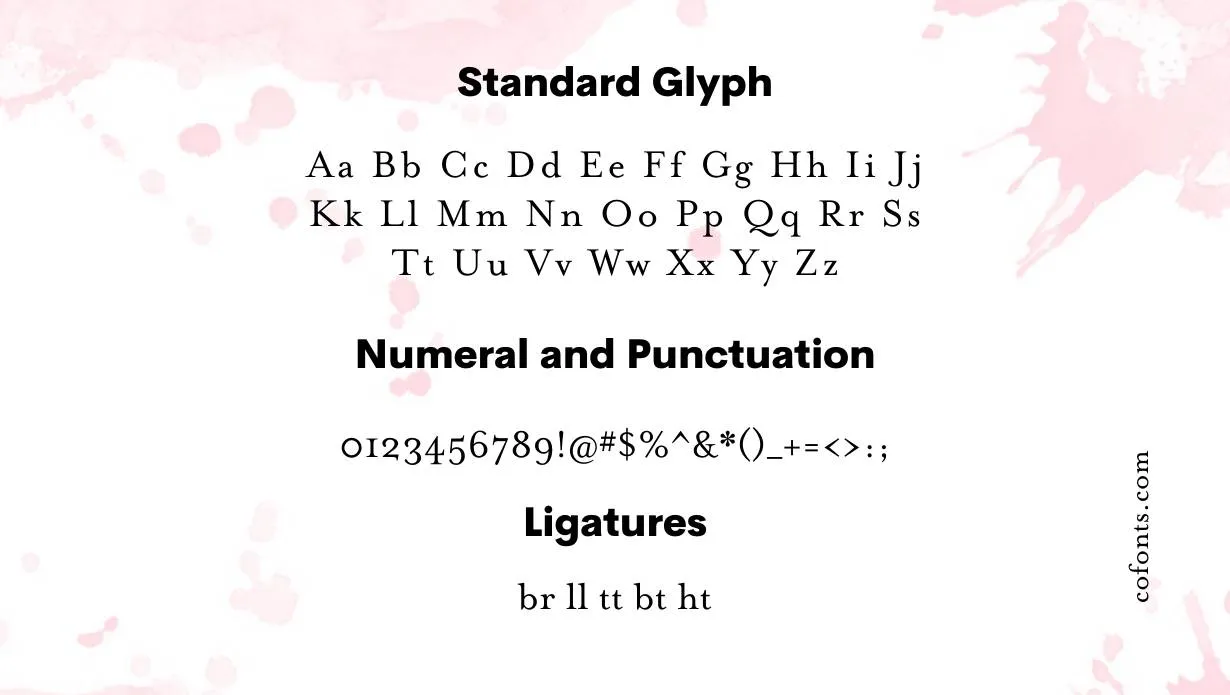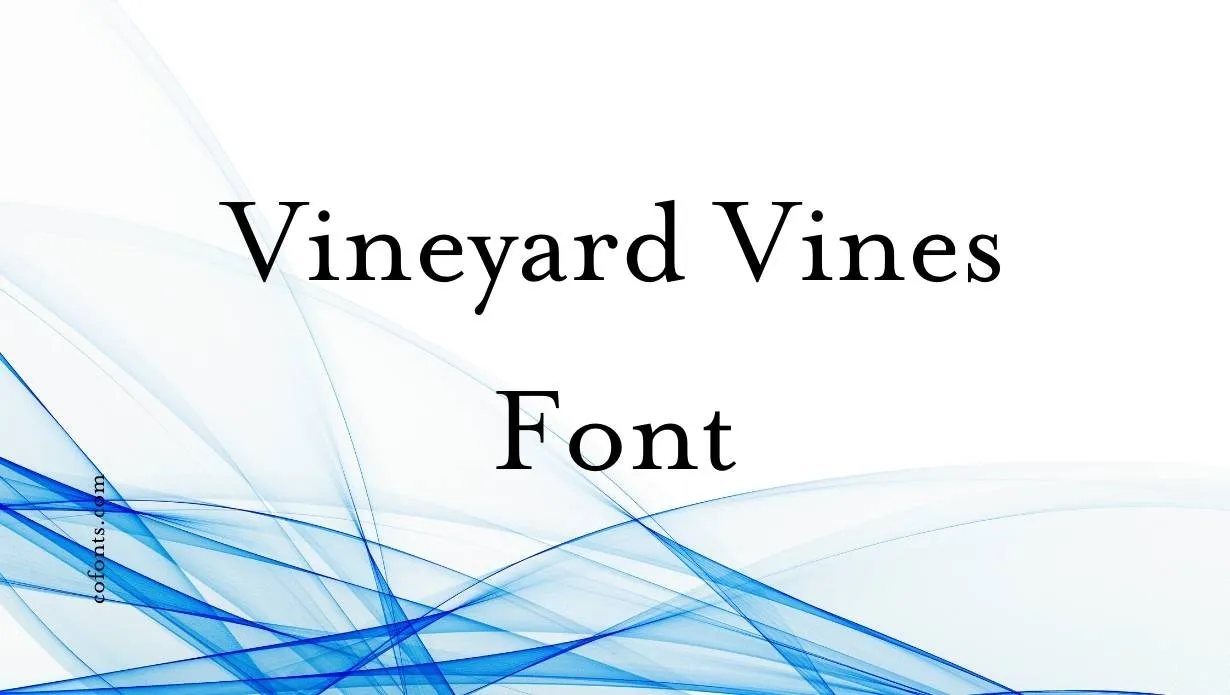
About Vineyard Vines Font
Today we are introducing a very attractive texture typeface that belongs to a serif family named Vineyard Vines Font. It was designed by Emigre name Foundry. This is a popular typeface design that has unique glyphs.
It contains 98 characters and 1159 unique glyphs with 1000 units per em. It unique glyphs include uppercase, lowercase, punctuation, swashes, ligatures, fractions and many more.